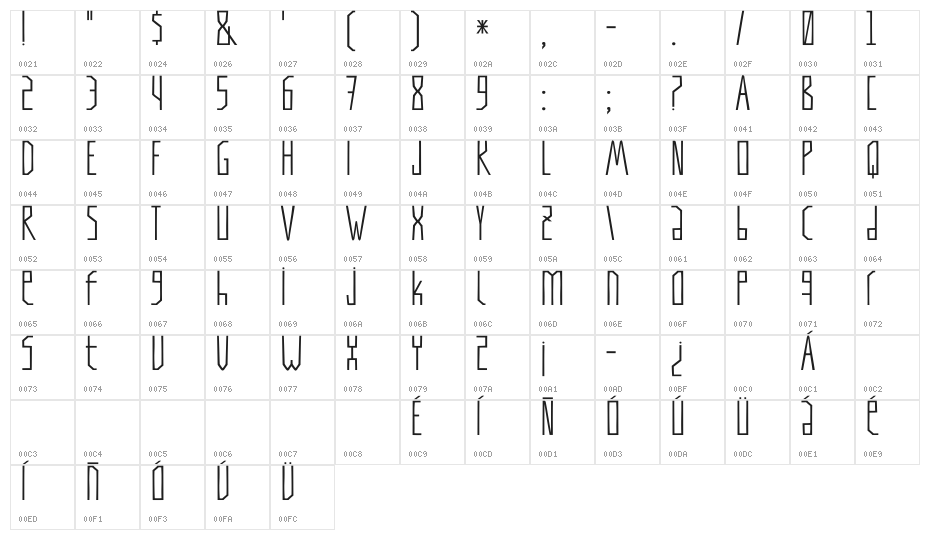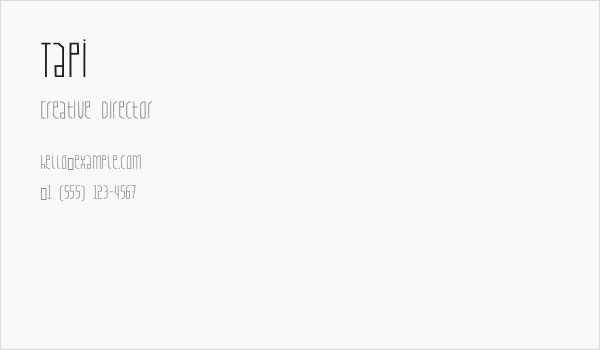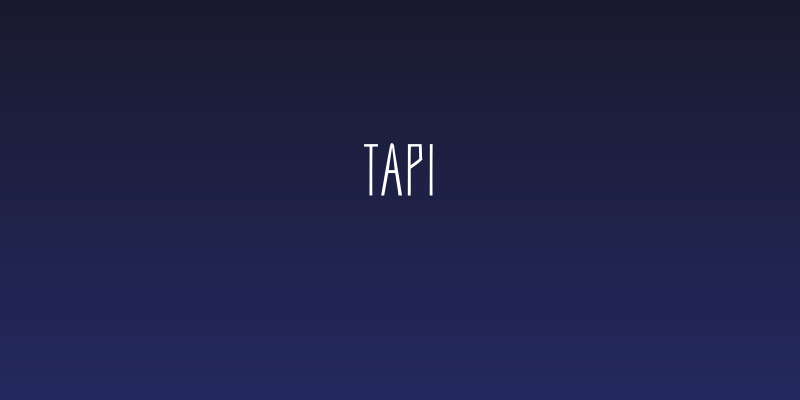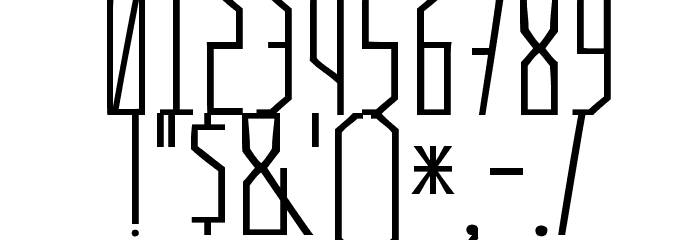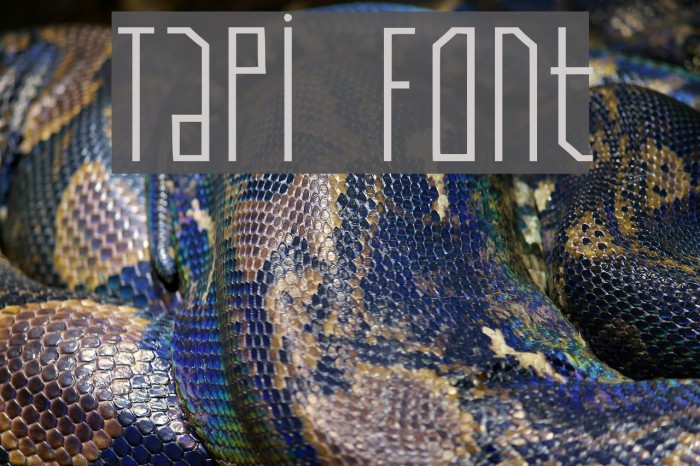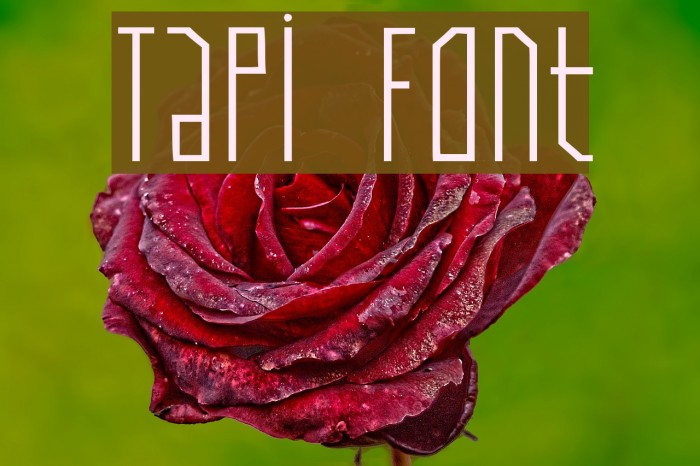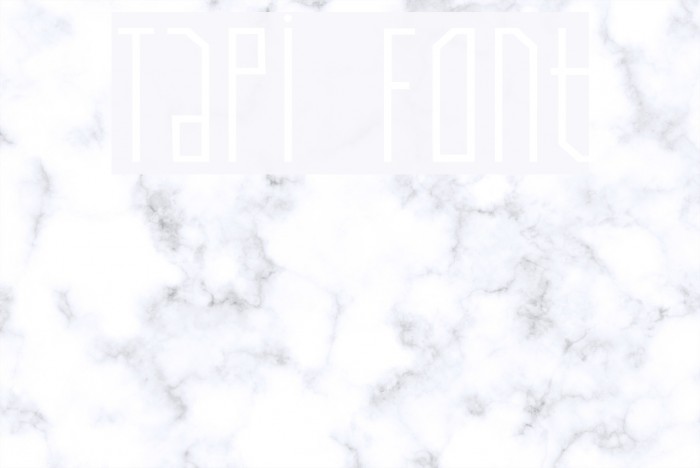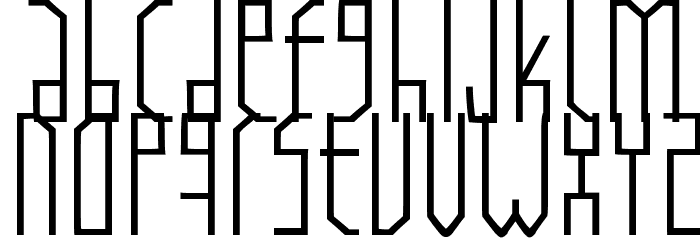
Tapi Font
Tapi Description
This font features a unique, geometric design with elongated, angular characters that create a striking visual impact. The uppercase and lowercase letters maintain a consistent height, giving the font a monospaced appearance. The characters are constructed with straight lines and sharp angles, lending a modern and futuristic feel. The numerals and special characters follow the same design principles, ensuring uniformity across the entire character set. The font's distinct style makes it ideal for projects that require a bold and unconventional look.
MatreroG
| Proposed Projects | Ideal for branding, posters, album covers, and digital artwork that require a bold, modern aesthetic. |